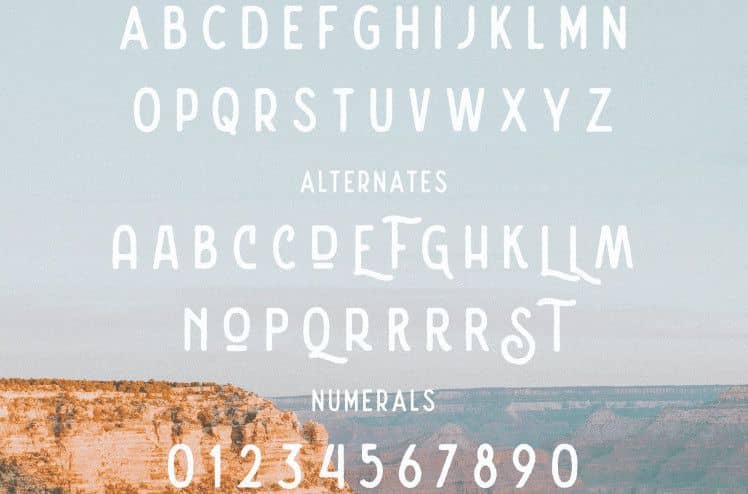
Nature Spirit Vintage Font
The Nature Spirit Font is now available. It’s a whole new Display typeface. Nature Spirit Vintage Font is a one-of-a-kind vintage font that comes in two styles: clean and rough. This typeface has a large number of alternate characters that can be used to create custom types. It’s a brand-new retro font. It is made with care to achieve the appropriate texture for each of your projects. Nature Spirit includes uppercase and lowercase characters and numbers and symbols, all of which come with a variety of alternates for a more stylish look. The Font is categorized under Display font. Alex Joganic of the 1871 Project created Nature Spirit, a unique antique look font. It only has capital letters, but there are a few variations to make things interesting. The typeface comes in both TTF and OTF formats. The typeface is compatible with a variety of platforms, including Windows, Apple/Mac, Linux, Cricut, Silhouette, and other cutting machines. Converting Nature Spirit Vintage Font to a web font is simple. This Font was designed to work in a wide range of sizes. The typeface has an artistic vibe to it, so it will add a touch of class to any project. The italic version of the font is quite lovely.
The Nature Spirit Vintage Font is ideal for vintage branding, logo and label design, clothes, lockups, and so much more! Use the conventional version of this typeface for websites and applications, notebook covers, and quotes, or opt for a grungier look by utilizing the rough design on posters and wallpaper with natural scenery and stickers. The display typeface can be used for both personal because limiting creativity is never an option.
| Name | Nature Spirit Vintage Font |
| Style | Display |
| Designer | Alex Joganic |